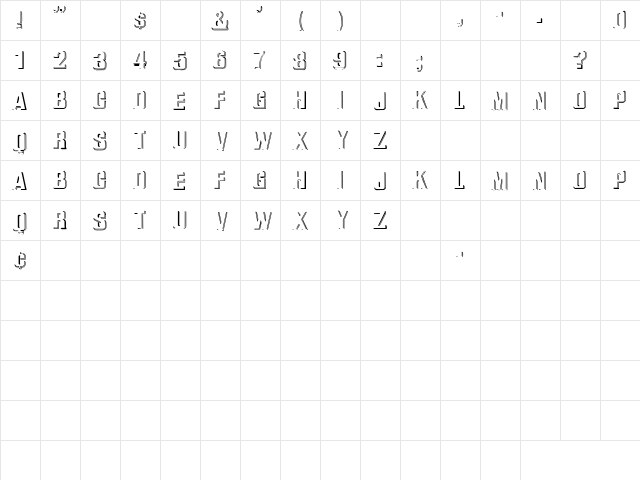
Shadow Box 2 Regular
Design Context for Shadow Box 2 Typeface
Shadow Box 2 is built around its visual character rather than neutral utility — its distinctive forms are designed to make an impression at display sizes.
Font Pairing: Pair with a clean neutral sans-serif for body copy to let Shadow Box 2's character lead without overwhelming the composition.
Pro Tip: Use Shadow Box 2 exclusively at display sizes — it was designed to be seen, not read at length. Let a neutral companion handle body copy.